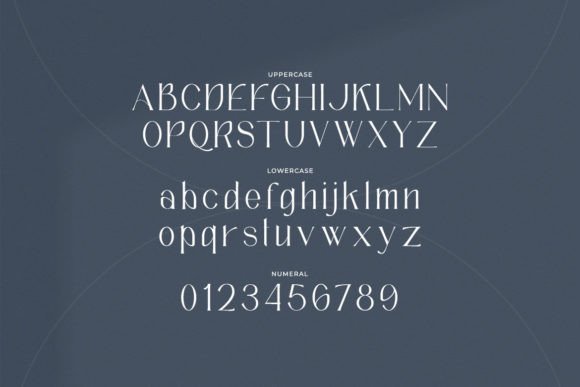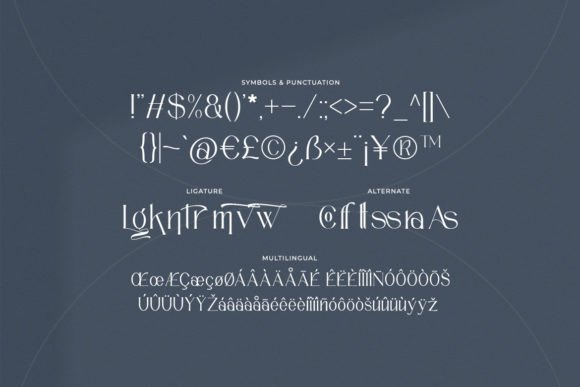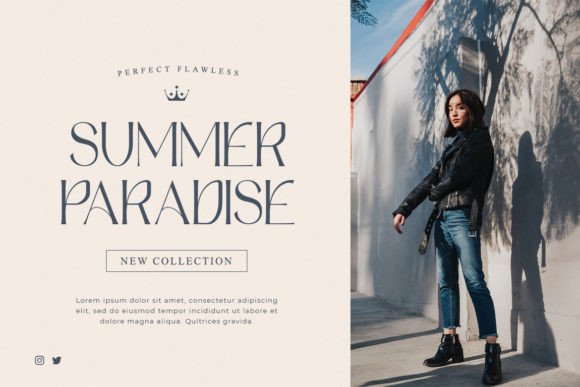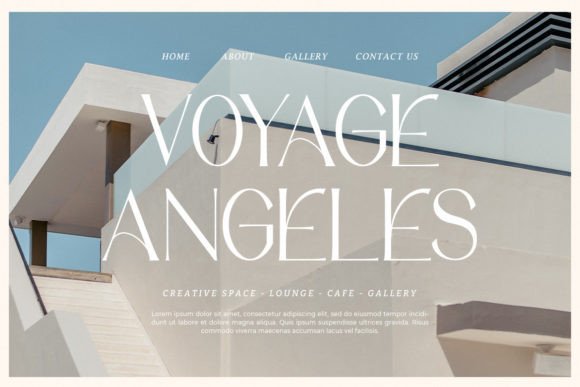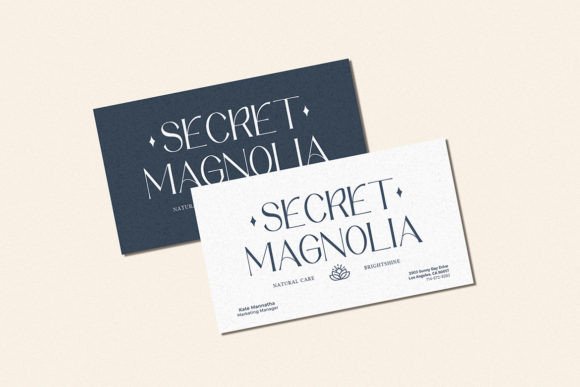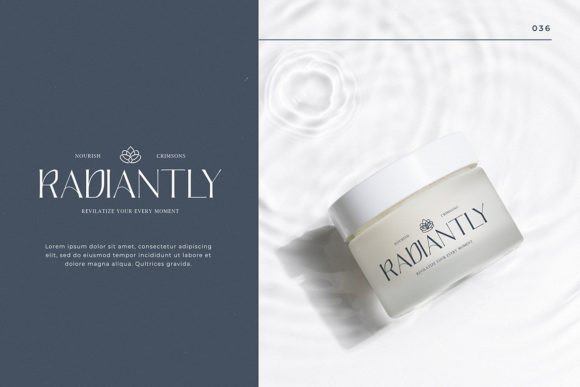
Introduction to Sea Constange Font
Have you ever been stuck on a creative project, searching for that perfect design element to bring your vision to life? For designers, finding the right font can be a game-changer. It’s the difference between a design that feels generic and one that truly stands out.
Enter the Sea Constange Font, a modern and unique sans serif typeface that’s sure to elevate any project. With its clean lines and versatile design, it’s the ideal choice for designers looking to add a touch of sophistication to their work.
Key Features of Sea Constange Font
- High-quality design resource suitable for creative projects, offering a unique and elegant touch.
- Comes in a transparent background, allowing for seamless integration with various design elements.
- Perfect for use in creative projects, such as logos, branding, and typography-based designs.
- Unique characteristics: ornate details, elegant lines, and a touch of sophistication, making it a standout design resource.
Honest Review: Sea Constange Font
I recently came across the Sea Constange Font, and I was excited to give it a try. As a designer, I’m always on the lookout for high-quality design resources that can elevate my creative projects.
One of the things that stood out to me about the Sea Constange Font is its versatility. It’s perfect for a variety of projects, from modern logos to elegant typography. The font is available for a free download, which is a huge plus for designers working on a budget.
- What works well: ✨ The font is incredibly easy to use, with a transparent background that makes it easy to customize and pair with other design elements.
- What works well: ✨ The font is highly customizable, with a wide range of styles and weights to choose from.
That being said, I did encounter a few limitations. The font can be a bit difficult to read at small sizes, and it may not be the best choice for projects that require a lot of text.
Overall, I’m impressed with the Sea Constange Font. It’s a great addition to any designer’s toolkit, and it’s perfect for designers working on a variety of creative projects.
Tips for Getting the Most Out of Sea Constange Font
Experiment with different font sizes and styles to find the perfect combination for your design. You can also use the font in conjunction with other design elements to create a unique visual identity.
The Sea Constange Font is perfect for a variety of creative projects, including:
- Editorial content and magazines
Alternatives to Sea Constange Font
Great Vibes is a beautiful, high-quality script font that is perfect for creative projects. It features a transparent background and is ideal for use in design resources where a modern and elegant look is required.
Use Great Vibes Font for headings and titles in your design project. It’s a great alternative to Sea Constange Font as it offers a similar level of sophistication and style, but with a more modern and relaxed feel.
Comparison to Sea Constange Font: Great Vibes Font is more versatile and can be used in a wider range of design contexts. While Sea Constange Font is more suited to formal and traditional designs, Great Vibes Font is perfect for modern and creative projects.
Pacifico is a beautiful, high-quality script font that is perfect for use in design resources where a relaxed and elegant look is required. It features a transparent background and is ideal for use in creative projects.
Use Pacifico Font for headings and titles in your design project. It’s a great alternative to Sea Constange Font as it offers a similar level of sophistication and style, but with a more laid-back and beachy feel.
Can I use the Sea Constange Font with a transparent background in my design?
Yes, the Sea Constange Font is designed to be used with a transparent background, allowing you to easily combine it with other design elements and create a seamless visual effect.